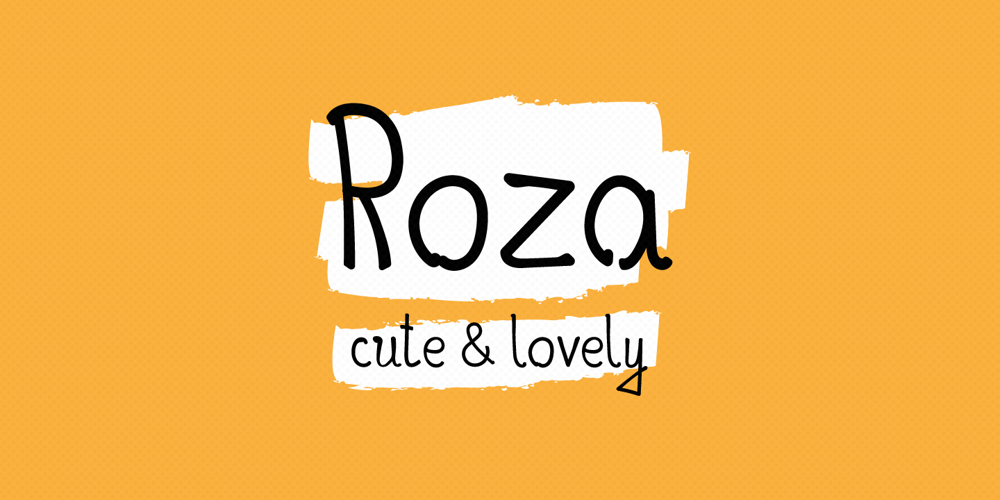
Roza
Roza font
Roza Font Family was designed by Szymon Furjan and published by Szymon Furjan. Roza contains 1 styles and family package options. Roza is a cute and lovely handwritten font. Designed to use when in need of something light and playful.